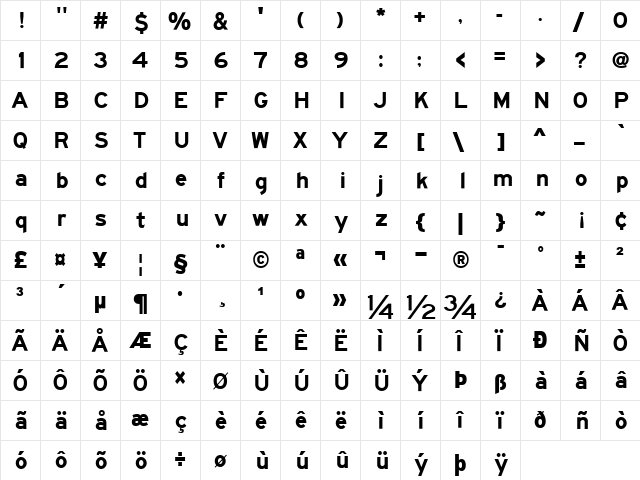
Roadgeek 2005 Series EM Regular
Design Context for Roadgeek 2005 Series EM Typeface
Roadgeek 2005 Series EM is a composed and adaptable typeface that performs quietly and consistently across a wide range of design contexts.